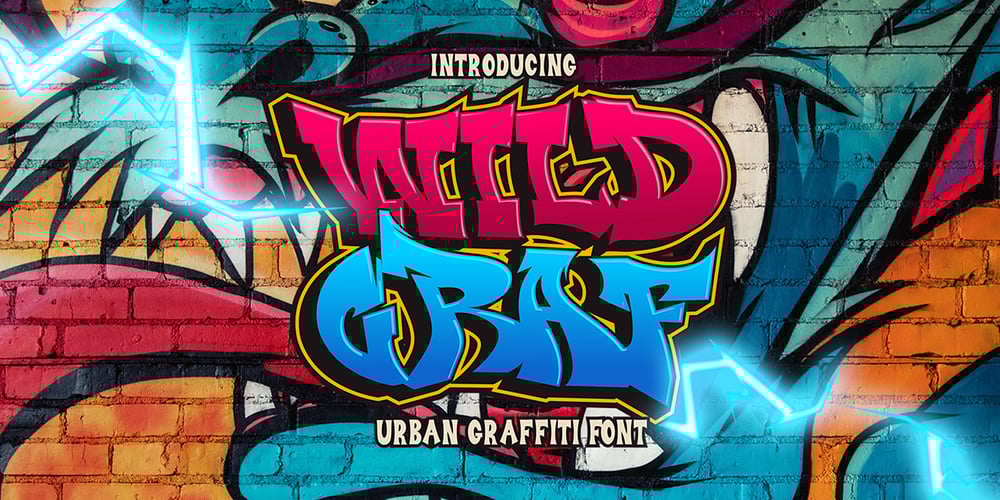
Wild Graf
Wild Graf font
Wild Graf Font Family was designed by Sipanji and published by Sipanji21. Wild Graf contains 1 styles and family package options. “Wild Graf” is an urban graffiti font characterized by sharp edges and a bold look. Ideal for music posters, apparel designs, shirts, and streetwear, this font brings a touch of edginess to your projects. The unique style of “Wild Graf” makes it the perfect choice for death metal or urban graffiti themes. Whether you want to create a strong and powerful statement or simply add a touch of attitude to your designsWild Graf” is the font for you.